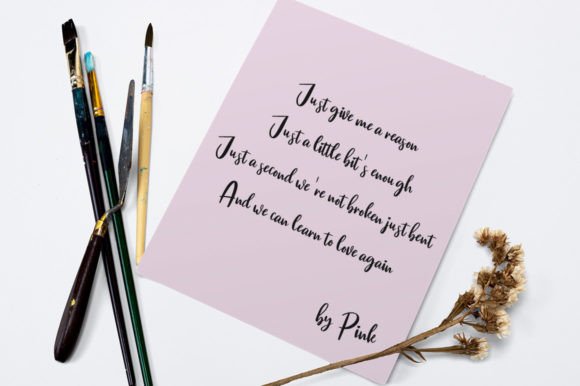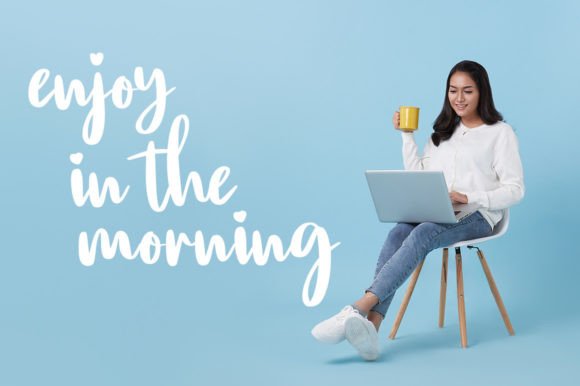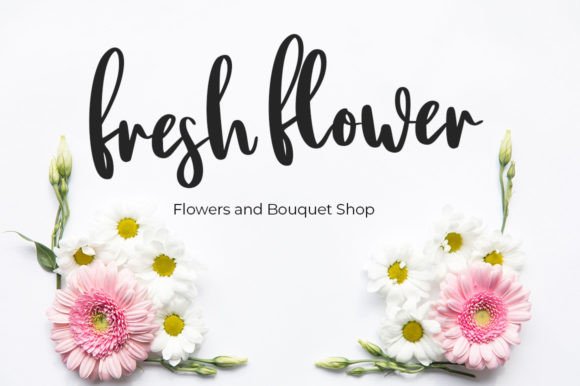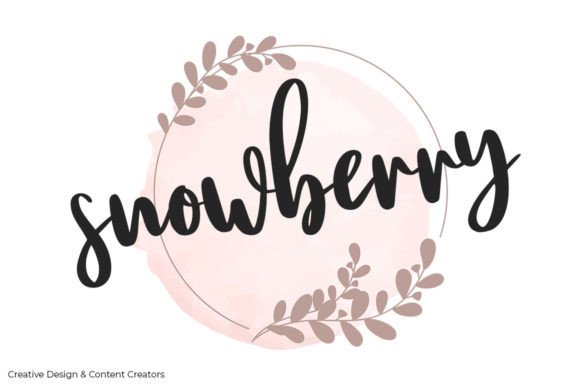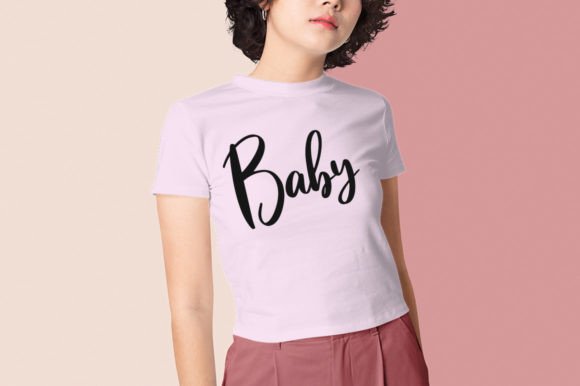
Bringlove Font: The Perfect Choice for Designs that Require a Personal Touch
In the world of typography, fonts play a crucial role in conveying the tone and personality of a design. For designers and crafters looking for a font that exudes warmth, approachability, and a personal touch, Bringlove is an excellent choice. This fresh and modern handwritten font has a clean and inviting appearance, making it perfect for a wide range of design applications.
Characteristics of Bringlove Font
Bringlove is a beautifully crafted handwritten font that boasts flowing letterforms with smooth curves and subtle variations in stroke width. These characteristics give the font a natural and organic feel, making it perfect for designs that require a sense of warmth and approachability. The font’s clean and inviting appearance ensures that it remains legible and easy to read, even at smaller font sizes.
Ideal Use Cases for Bringlove Font
Bringlove is a versatile font that can be used for a variety of design applications. Some of the ideal use cases for this font include:
- Wedding Invitations: The font’s elegant and cursive feel makes it perfect for wedding invitations, save-the-date cards, and other wedding-related designs.
- Greeting Cards: Bringlove’s warm and inviting style makes it ideal for greeting cards, including birthday cards, thank-you cards, and holiday cards.
- Lifestyle or Wellness Brands: The font’s natural and organic feel makes it perfect for branding and marketing materials for lifestyle or wellness brands, including logos, packaging, and website designs.
Why Choose Bringlove Font?
There are several reasons why Bringlove font stands out from other fonts:
- Unique and Fresh Design: Bringlove has a unique and fresh design that sets it apart from other handwritten fonts.
- Versatile: The font can be used for both body text and headlines, making it a versatile choice for designers.
- Easy to Read: Bringlove’s clean and inviting appearance ensures that it remains legible and easy to read, even at smaller font sizes.
- Perfect for Personalized Designs: The font’s warm and inviting style makes it perfect for designs that aim to connect with people on a personal level.
Tips for Using Bringlove Font Effectively
Here are some tips for using Bringlove font effectively in your designs:
- Pair with Other Fonts: Bringlove can be paired with other fonts to create a unique and visually appealing design.
- Use for Headlines and Body Text: The font can be used for both headlines and body text, making it a versatile choice for designers.
- Experiment with Colors: Bringlove can be used with a variety of colors to create a design that matches your brand’s personality.
In conclusion, Bringlove font is a fresh and modern handwritten font that is perfect for designs that require a sense of warmth and approachability. Its flowing letterforms, smooth curves, and subtle variations in stroke width give it a natural and organic feel. With its versatility, unique design, and ease of use, Bringlove is an excellent choice for designers and crafters looking to add a personal touch to their designs.